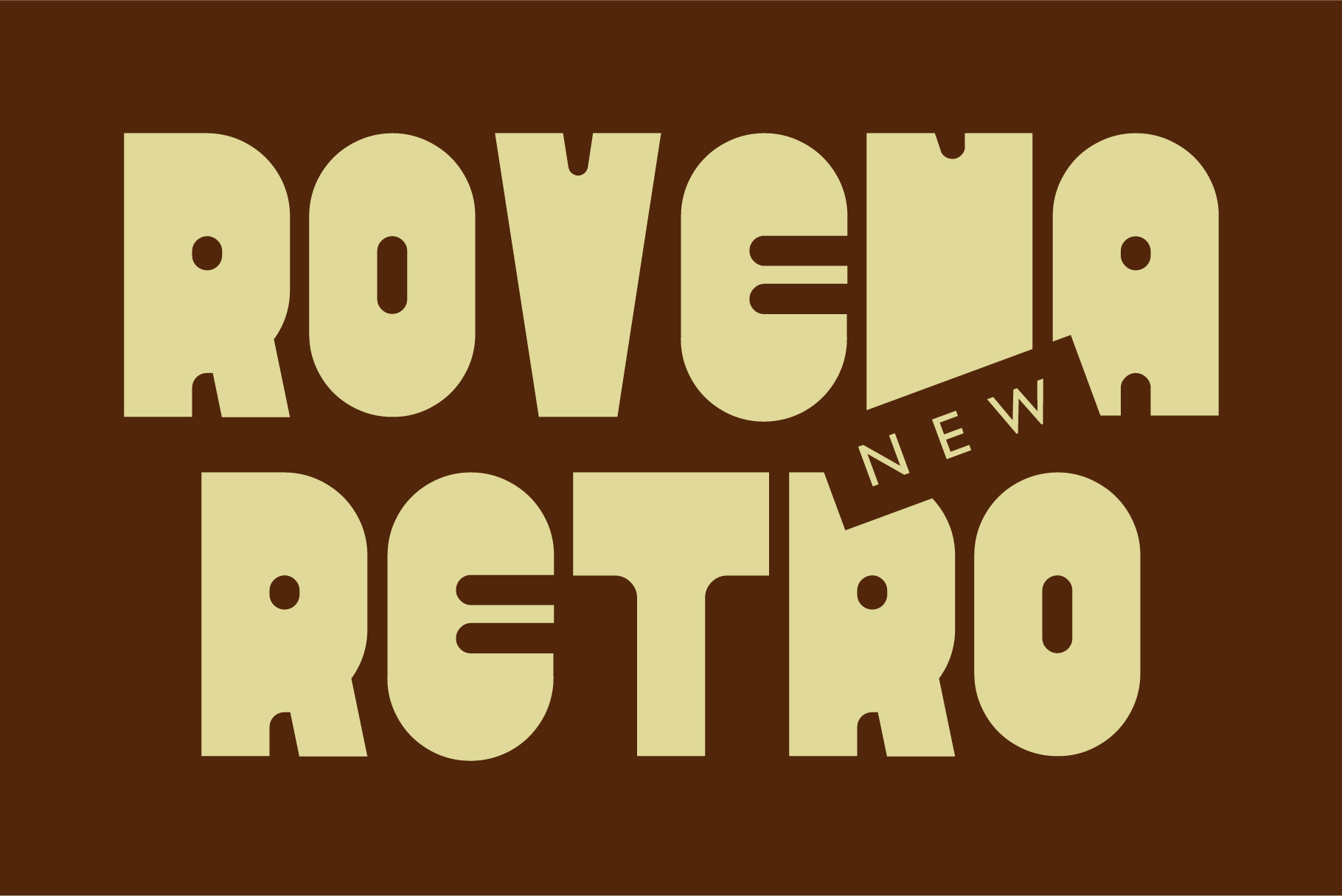
Rovena - Retro Display Font
Rovena is a retro-inspired typeface that blends vintage charm with a modern edge. It features bold, rounded letterforms, smooth curves, and playful proportions that evoke the aesthetics of mid-20th-century design. The font carries a nostalgic yet stylish feel, making it perfect for branding, posters, packaging, and creative projects that aim to capture a warm, classic atmosphere with a contemporary twist.